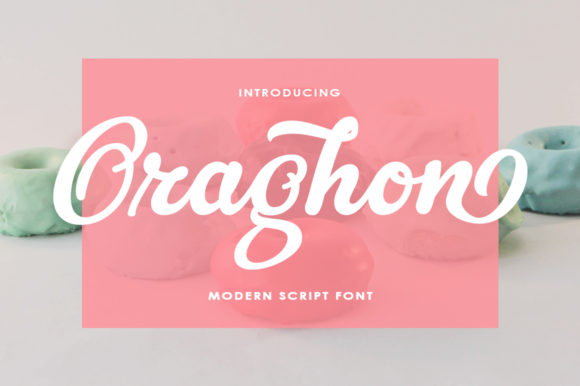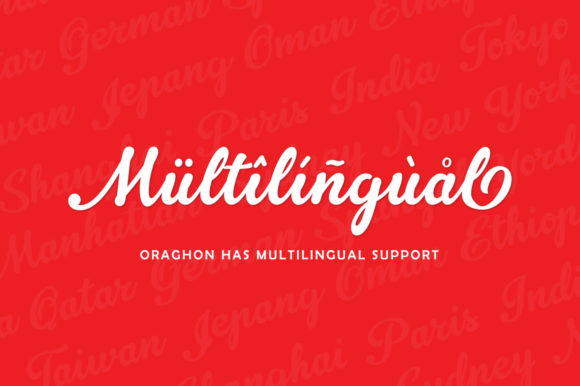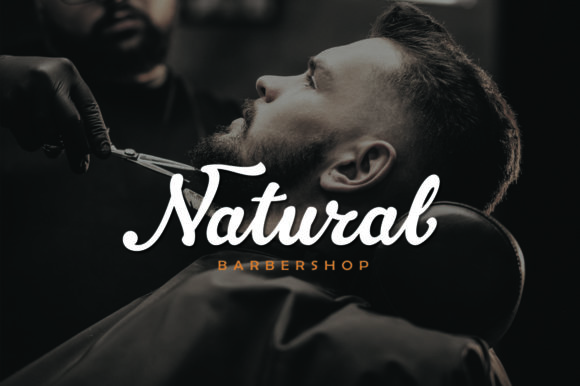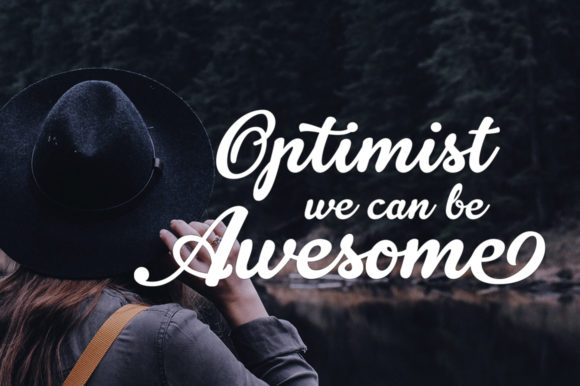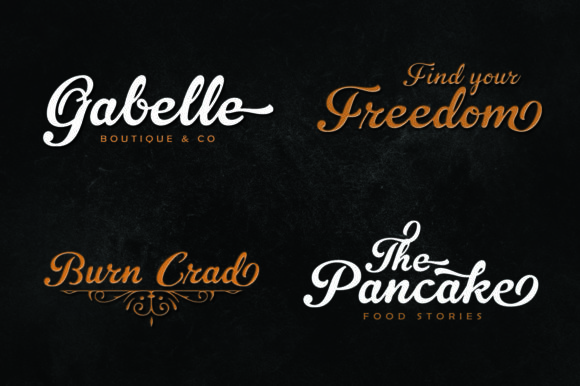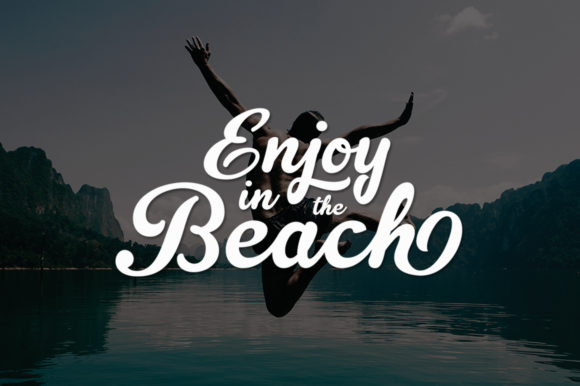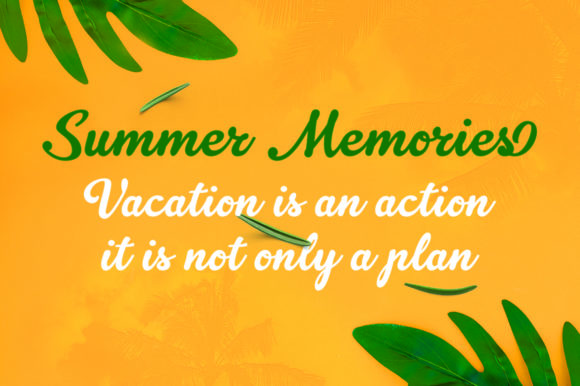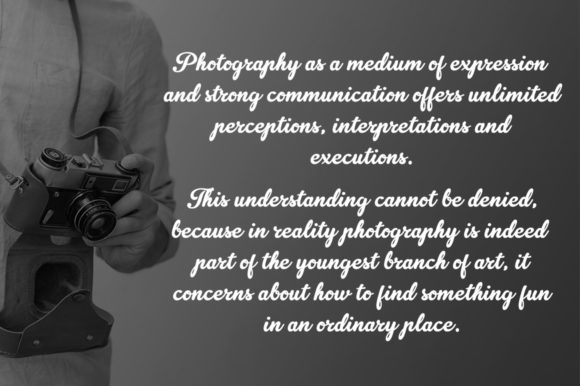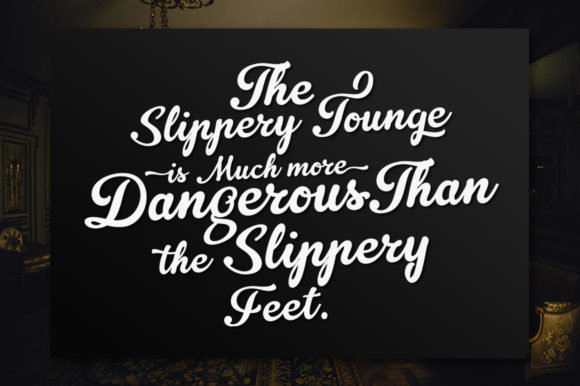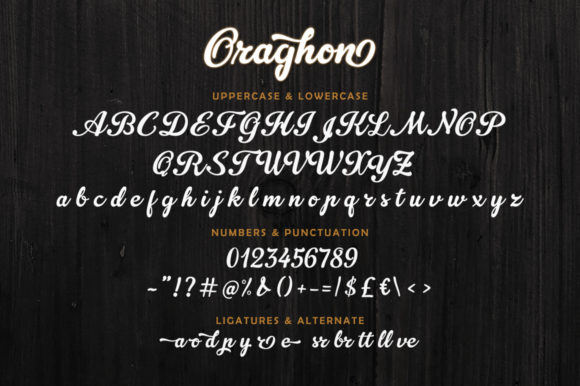
Oraghon Font
Oraghon is a beautiful handwritten font, created with the help of a gorgeous brush pen. This font is PUA encoded which means you can access all of the glyphs and swashes with ease! It features a varying baseline, smooth lines, gorgeous glyphs and stunning alternates.
Fall in love with its incredibly versatile style and use it to create gorgeous wedding invitations, beautiful stationary art, eye-catching social media posts, and much more!